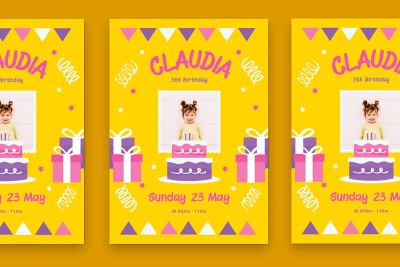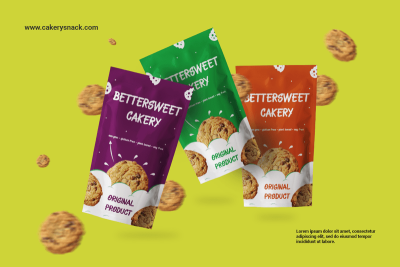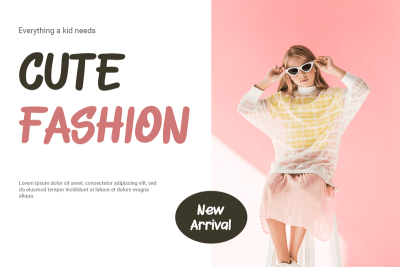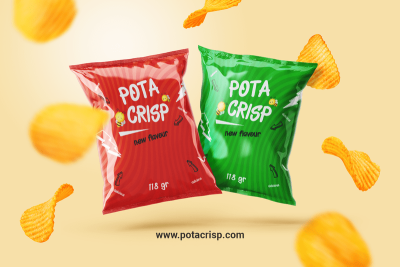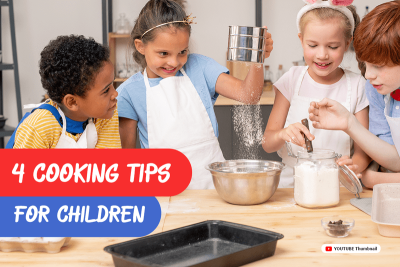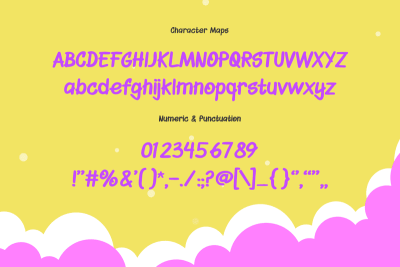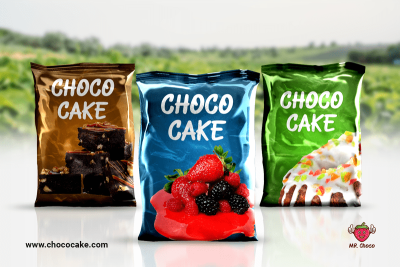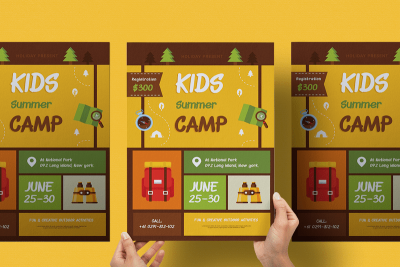
Cute Font Snack Font is a playful, snack-inspired typeface that brings fun and whimsy to your projects. With bold, rounded letters and a soft, puffy look, this font adds a friendly feel to any design. Additionally, the outline effect gives each letter a sense of depth, making the text pop, much like a delicious snack on display. Ideal for capturing the joy and excitement of enjoying treats, Cute Font Snack Font is perfect for designs with a lighthearted, inviting vibe.
Moreover, its vibrant design stands out on any background, making it visually engaging and approachable. Each letter has a playful touch with rounded edges and depth, which adds warmth to your text. The snack-themed style works well for food-related projects, kidsโ products, or anything needing a touch of sweetness. Cute Font Snack Font can transform ordinary text into a delightful, eye-catching experience.
Cute Font Snack Font Ideal for
This font is a fantastic choice for designers, marketers, and brands focused on children, food, or family-friendly themes. It works especially well for snack businesses, bakeries, cafes, and food ventures targeting younger audiences. This fontโs fun vibe is ideal for product packaging, menus, posters, and signage, adding a welcoming feel. For brands aiming to convey joy and warmth, Snack Font is a valuable asset in their marketing materials.
Furthermore, this font is ideal for educational content creators and teachers. Perfect for learning materials, activity books, and worksheets, Cute Font Snack Font makes content more engaging for young learners. Its bold, friendly look encourages children to feel comfortable with the material, thus creating an enjoyable learning environment. Additionally, it can brighten up classroom decor, making the space cheerful and keeping students interested.
Digital creators, social media managers, and influencers can also benefit from Cute Font Snack Font to add a fun, memorable touch to their content. Perfect for engaging graphics, captions, and banners on social media, this fontโs playful style helps it stand out on busy feeds. This makes it a great choice for promoting food-related content or family-focused events. Snack Font also suits DIY projects, recipe cards, and blog headers, adding a warm, inviting feel.
In summary, this font is an excellent choice for adding charm and playfulness to designs. More than just a font, itโs an experience that captures the comfort of a favorite snack. Whether used in branding, educational content, or social media, Snack Font adds joy and warmth, ensuring your message stands out.